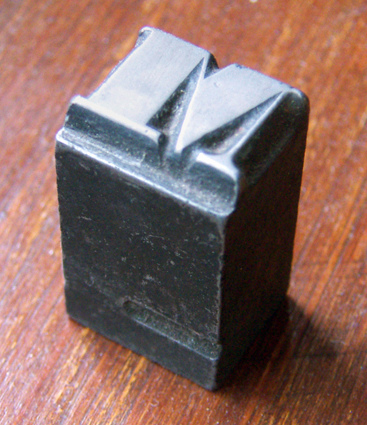
Two line small pica fatface M
However, the internet is at hand and I've discovered lots of letterpress-related pictures on Flickr - a lot of it is pictures of wedding invitations etc. but I found this picture posted by Alan Brignull most interesting:
Alan says:
Quote
To celebrate one thousand visitors to my photostream page, here's an M from one of the older founts in the Hedgehog Press collection. When I acquired it among a lot of other stuff it was labelled 'worn out Bodoni' but it's older than that, more like the mid-19th century Thorowgood. There's no pin-mark and some letters show flow marks from casting in a hand mould. It's on a pre-point system body, about 22pt which would have been 'two line small pica'.
As you see, it's been well used (who knows what posters and handbills it played a part in?) but it's just usable still if you like the 'distressed' look. I can't imagine anyone getting this attached to a computer font file in centuries to come.